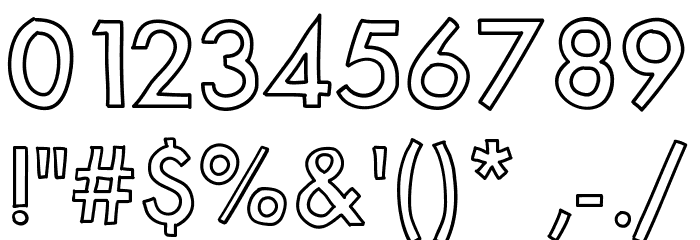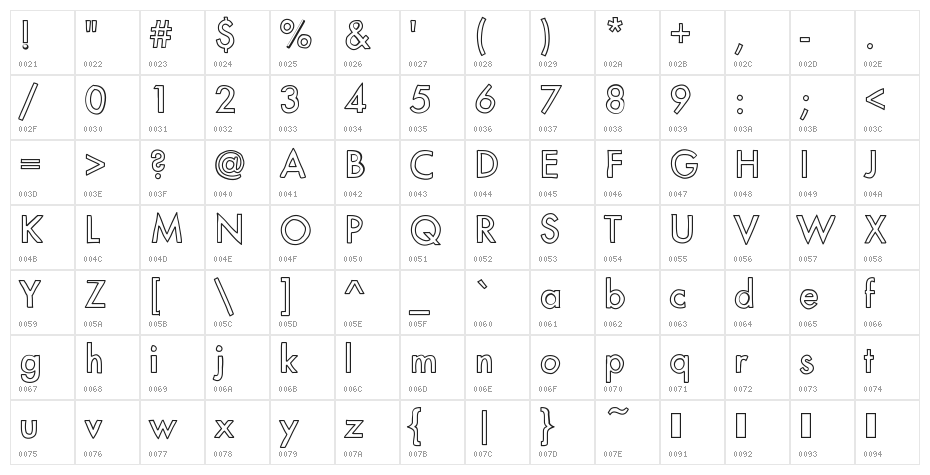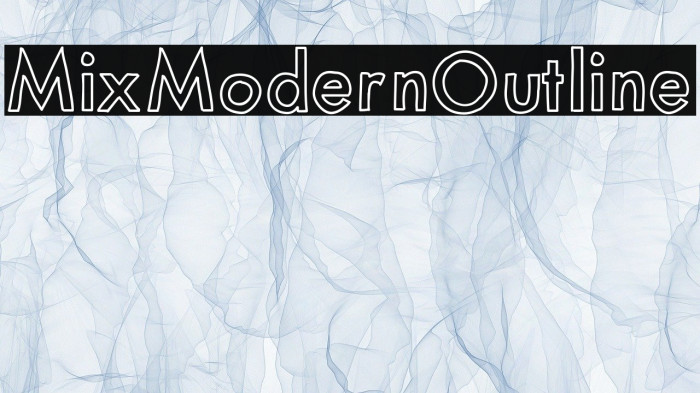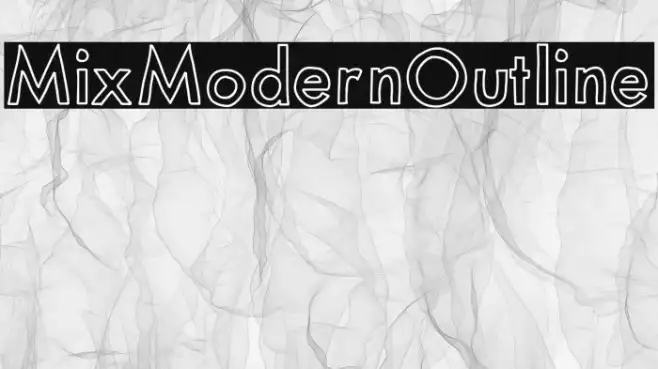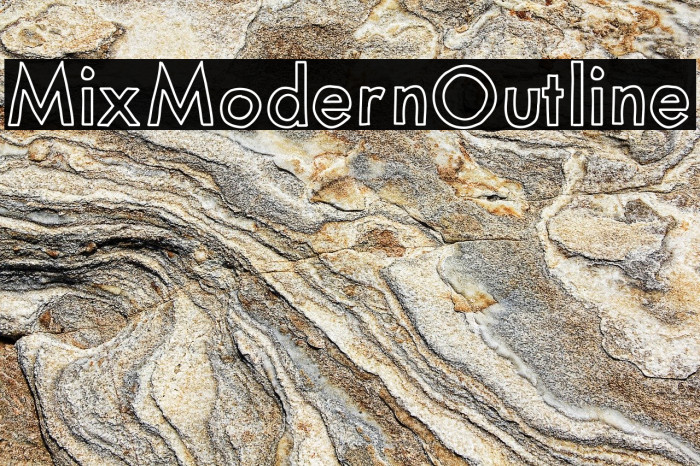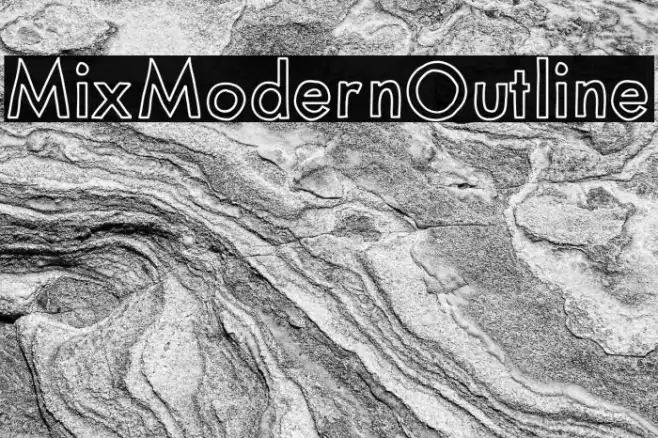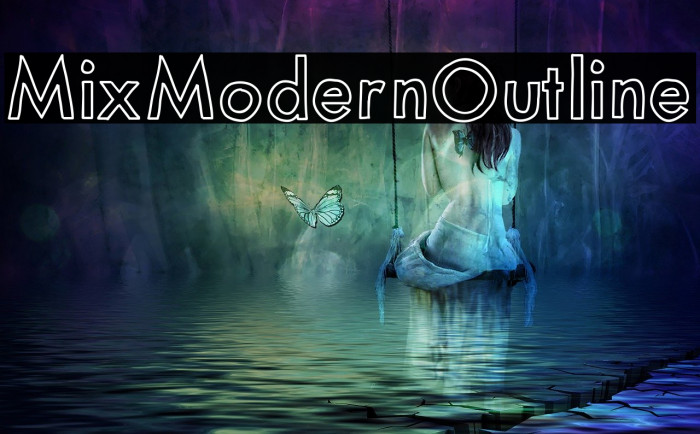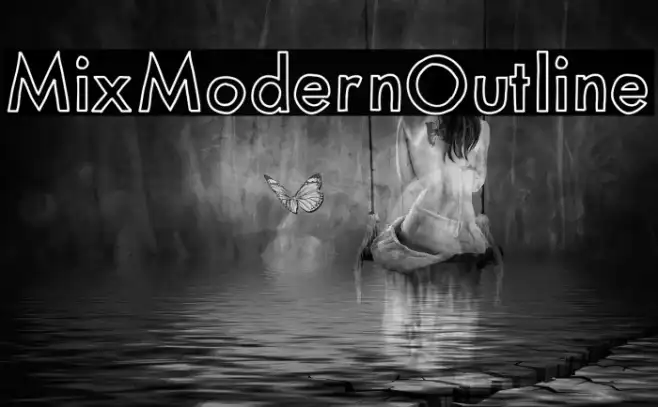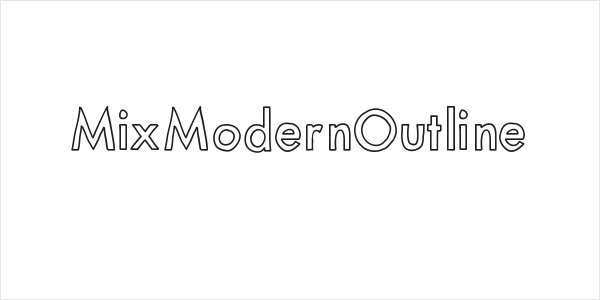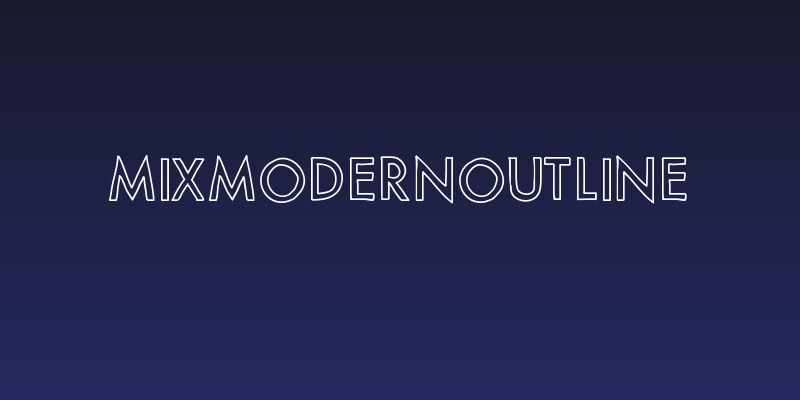
MixModernOutline Font
MixModernOutline Description
This font features a modern outline style with clean, geometric shapes. Each character is defined by a bold, consistent outline that gives it a striking appearance. The uppercase and lowercase letters maintain a uniform width, creating a harmonious look across the alphabet. The numerals and special characters are designed to match the letterforms, ensuring a cohesive visual style. The font's open structure and clear lines make it highly legible, even at smaller sizes. Its contemporary design is suitable for a variety of applications, from digital media to print. The overall aesthetic is sleek and professional, making it an excellent choice for projects that require a modern and stylish typeface.